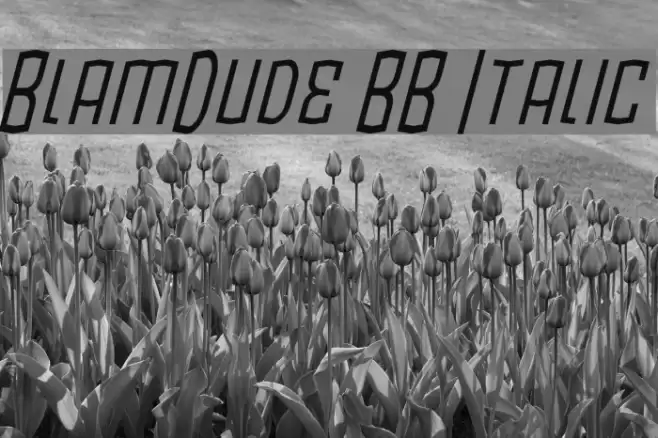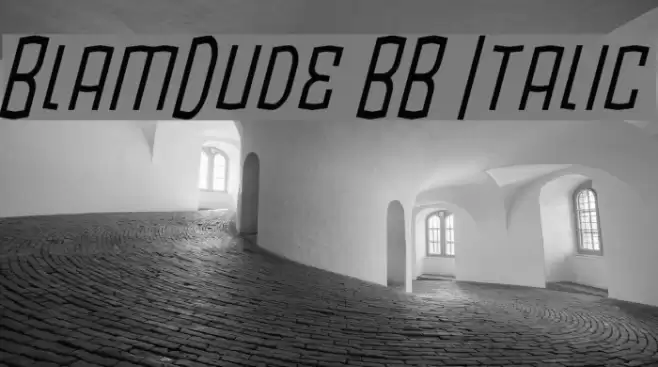
BlamDude BB Italic Font
BlamDude BB Italic Description
This font features a bold and dynamic italic style with a distinct slant, giving it a sense of motion and energy. The characters are angular and geometric, with sharp edges and a futuristic appearance. The uppercase and lowercase letters maintain a consistent style, with the uppercase being slightly more elongated. Numbers and special characters follow the same angular design, ensuring uniformity across all glyphs. The font's unique style makes it stand out, suitable for projects that require a modern and edgy look.
A bold, angular italic font with a futuristic and dynamic style from Uncategorized fonts.
- Proposed Projects: Ideal for use in video game graphics, sci-fi themed posters, modern branding, and dynamic headlines.